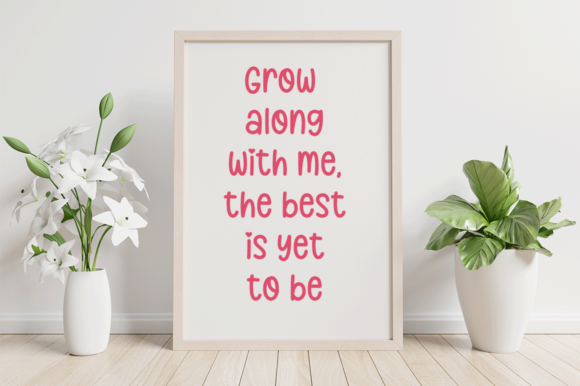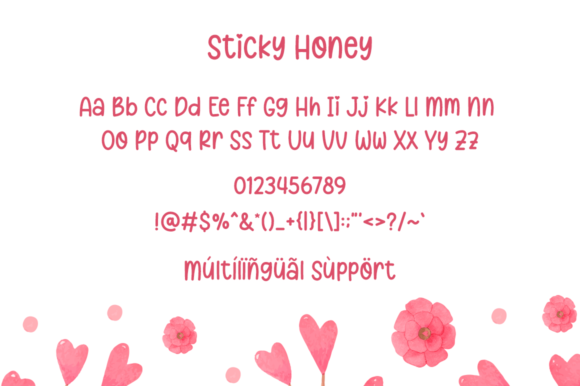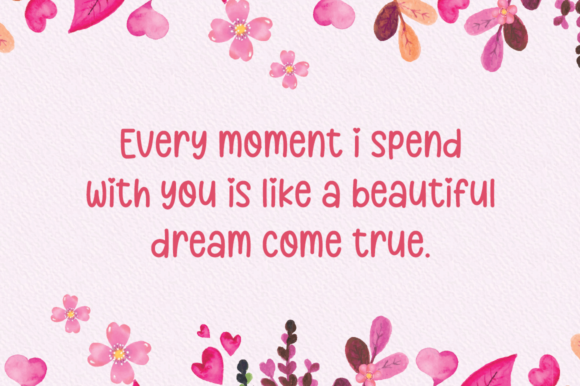
Sticky Honey Font
About Sticky Honey Font
Sticky Honey is a lovely handwritten font. it is best choice for creating all crafting project. Use this font for your designs and explore its endless possibilities.